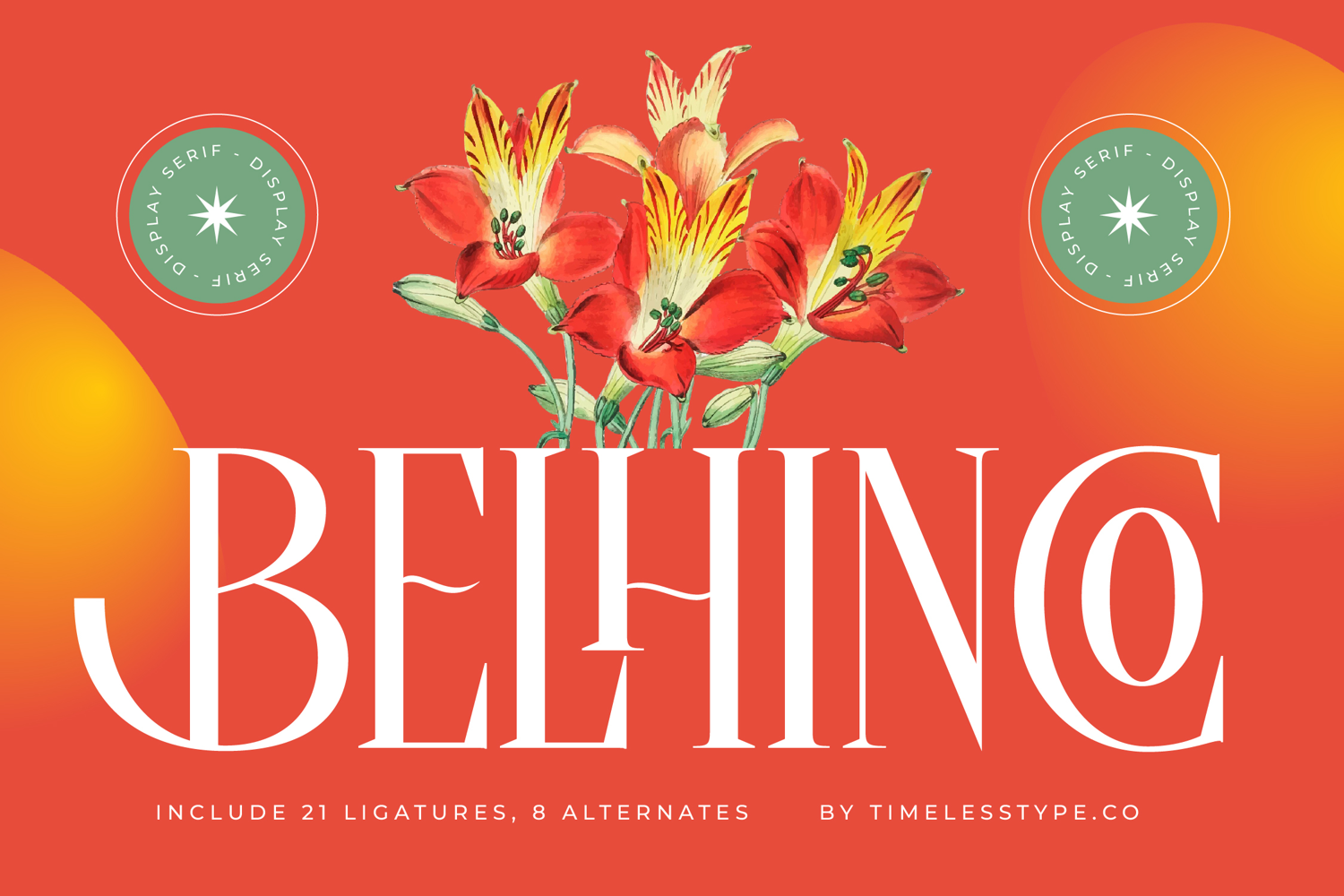
Belhinco - Display Serif Font
Belhinco
Belhinco Italic
Belhinco - Display Serif Font
Belhino is a display serif font that embodies elegance, strength, and timeless charm. With its tall proportions, refined strokes, and sharp serifs, this typeface delivers a striking and sophisticated presence that works beautifully in high-end design projects. Designed with 21 ligatures and 8 alternates, Belhino offers creative flexibility, allowing designers to craft distinctive typography that feels polished and unique. Its clean yet decorative design makes it an ideal choice for projects that require both authority and refinement.
This font is especially powerful in headline typography, where its elongated letterforms and graceful details immediately capture attention across posters, banners, and editorial layouts. In branding and logo design, Belhino communicates exclusivity and sophistication, making it a perfect fit for luxury brands, fashion houses, creative studios, and boutique businesses seeking a strong, memorable identity.